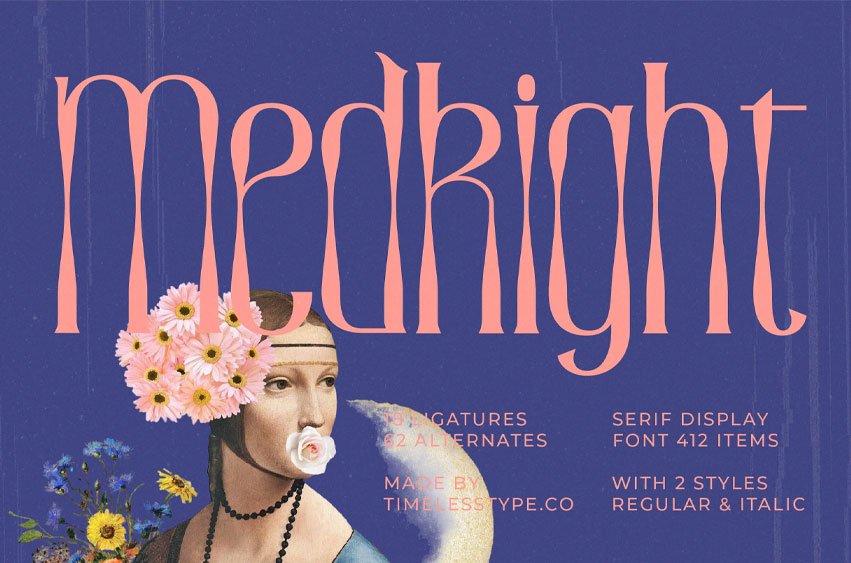
Medkight Font is a tall, elegant serif display font with sculpted high-contrast strokes, refined curves, and artistic alternates that channel a modern renaissance aesthetic; perfect for editorial layouts, luxury branding, perfume campaigns, magazine headlines, and artistic visual identities that need a graceful but striking typographic presence—powered by 18 ligatures, 62 alternates, and two versatile styles (Regular & Italic) to shape sophisticated, expressive compositions.